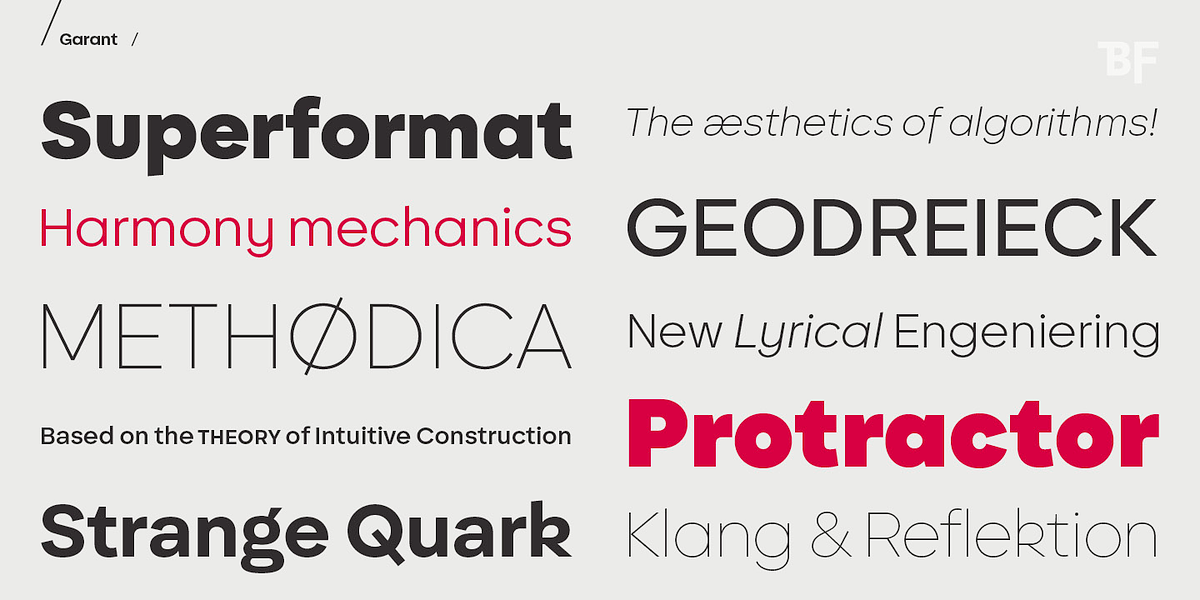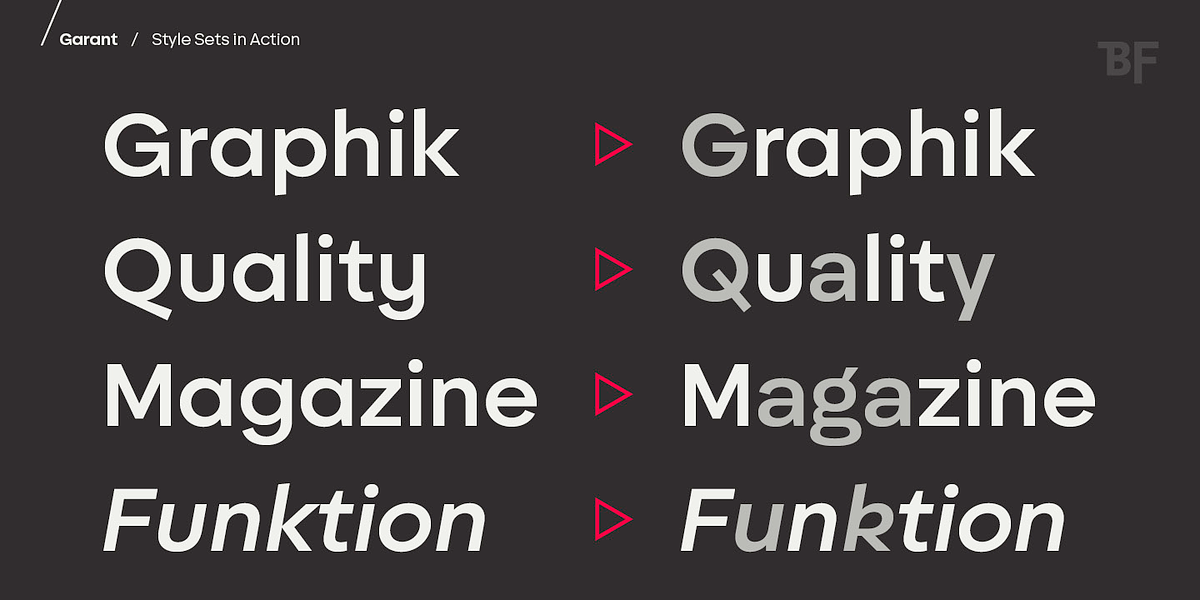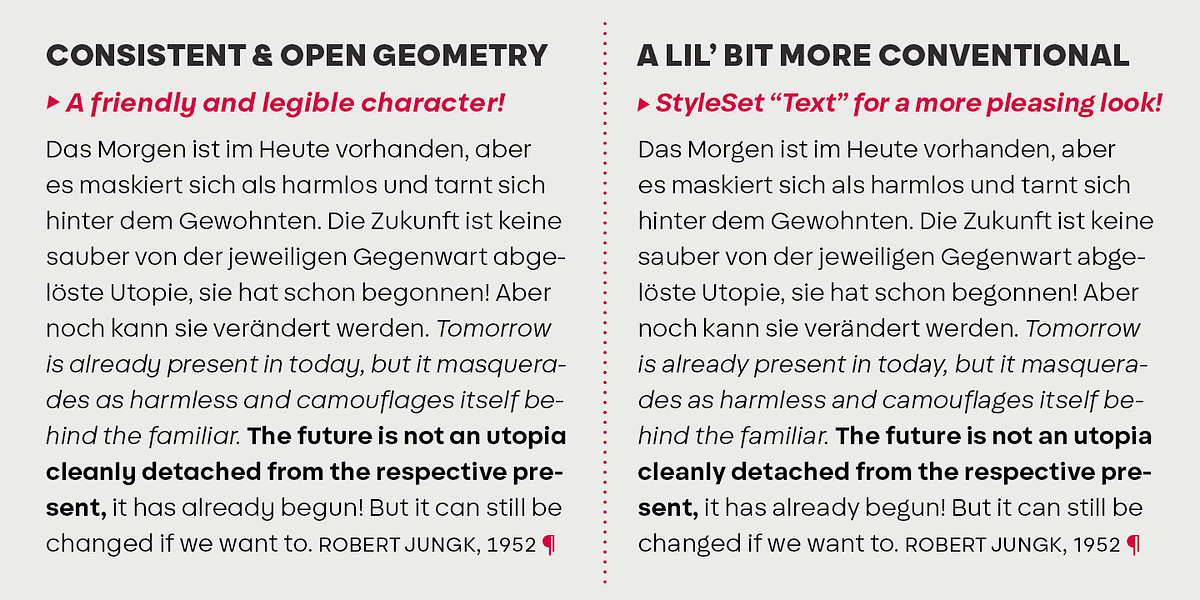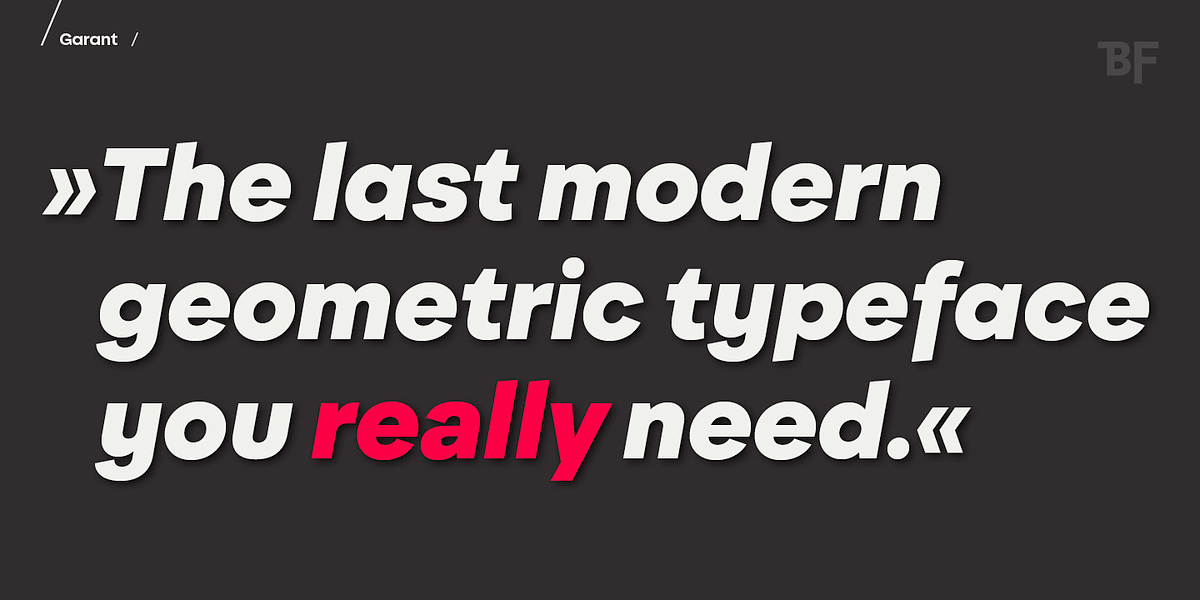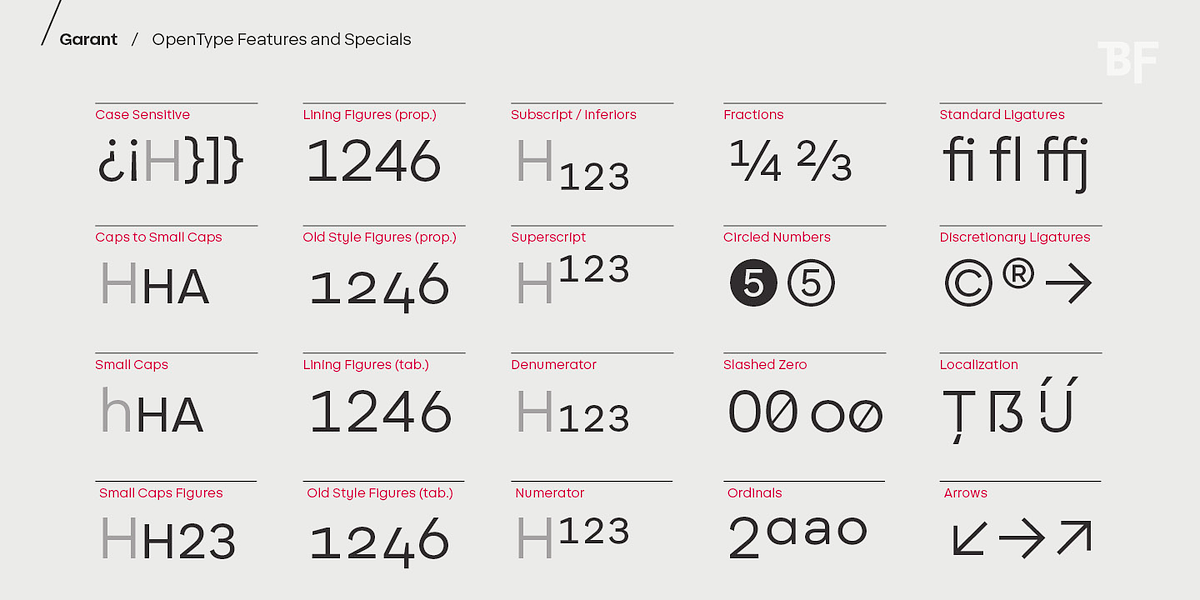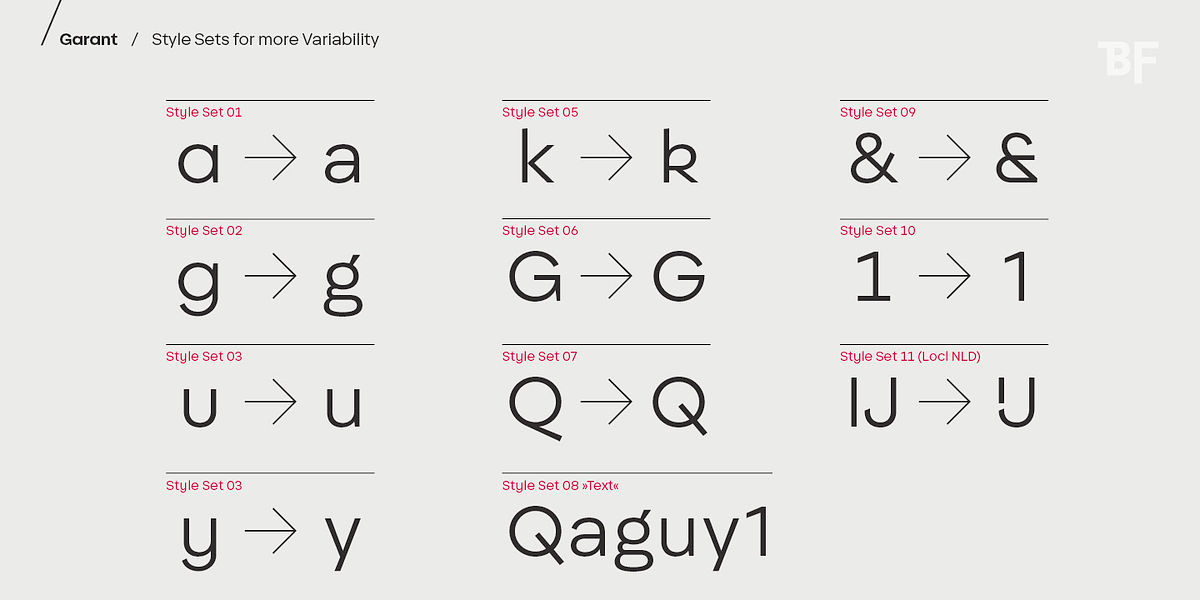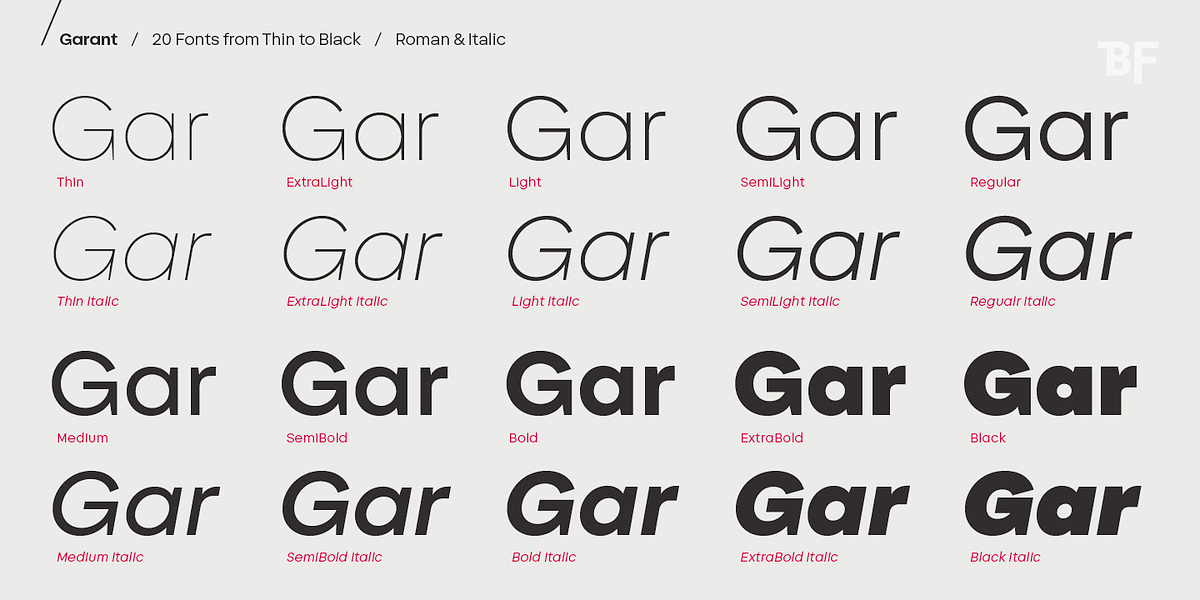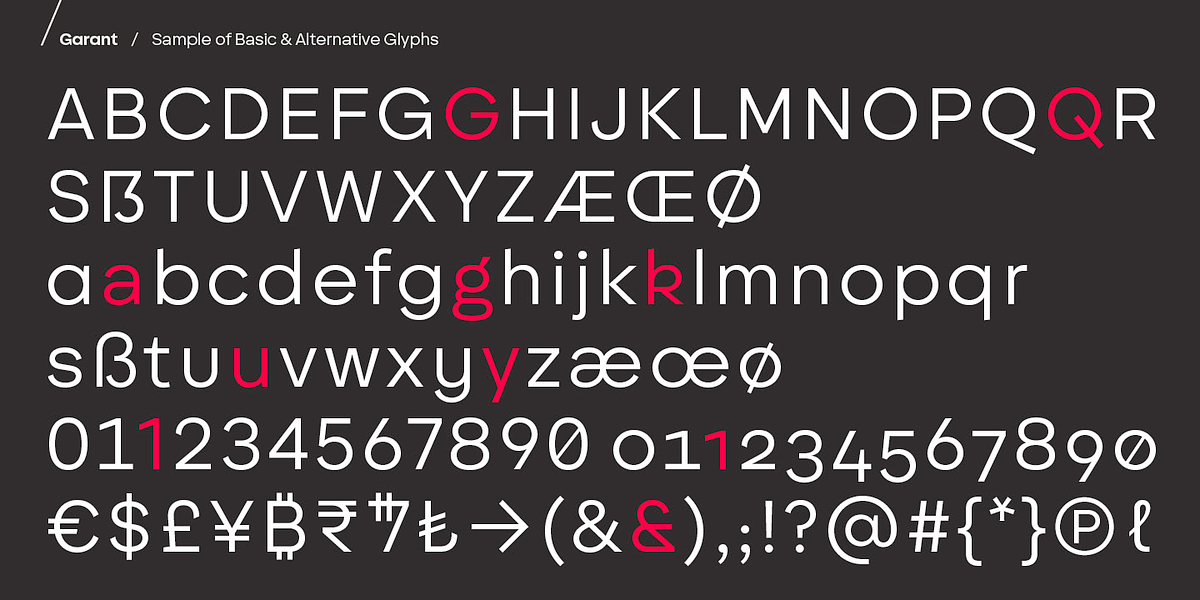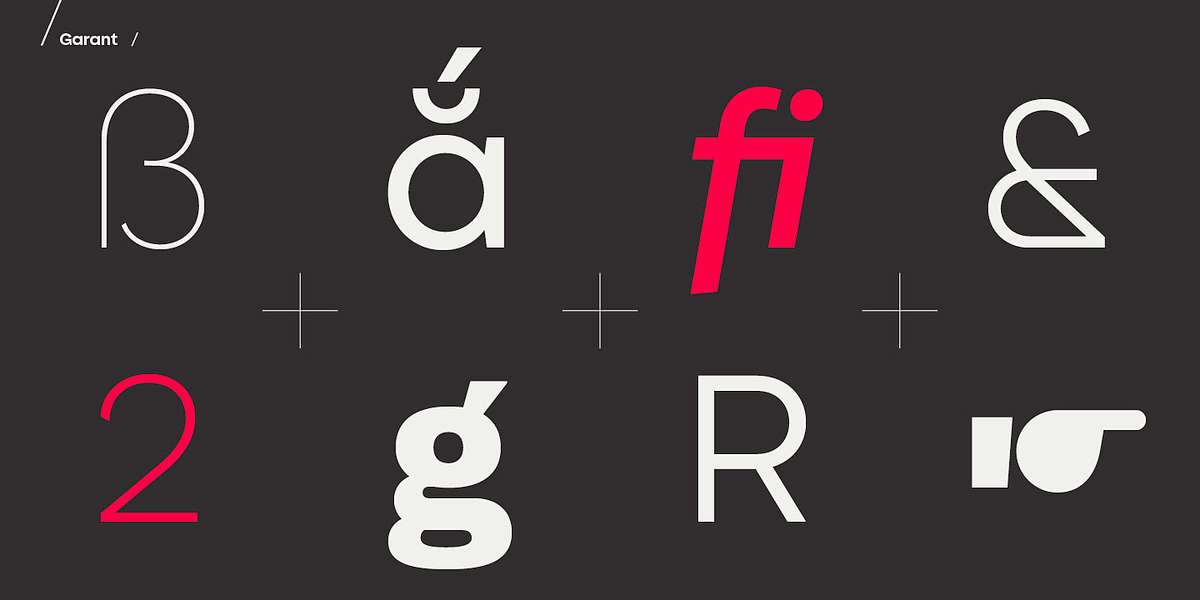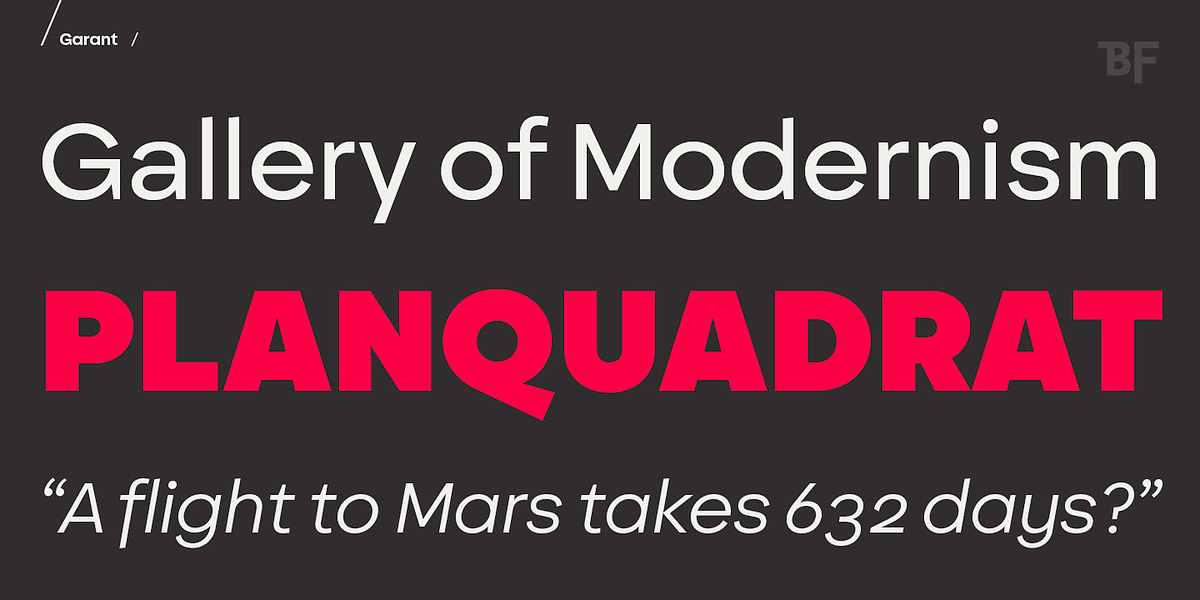
BF Garant
BF Garant™ is a modern geometric sans serif font that combines strict architectural forms with dynamic details. The open counters, tapered spurs, and diagonal cut ascenders and descenders give it a lively character. Its large x-height and humanist-inspired letter alternatives make it highly legible. BF Garant™ comes in ten weights, from Thin to Black, with matching italics. It also includes a wide range of OpenType features and supports over 200 Latin-based languages.